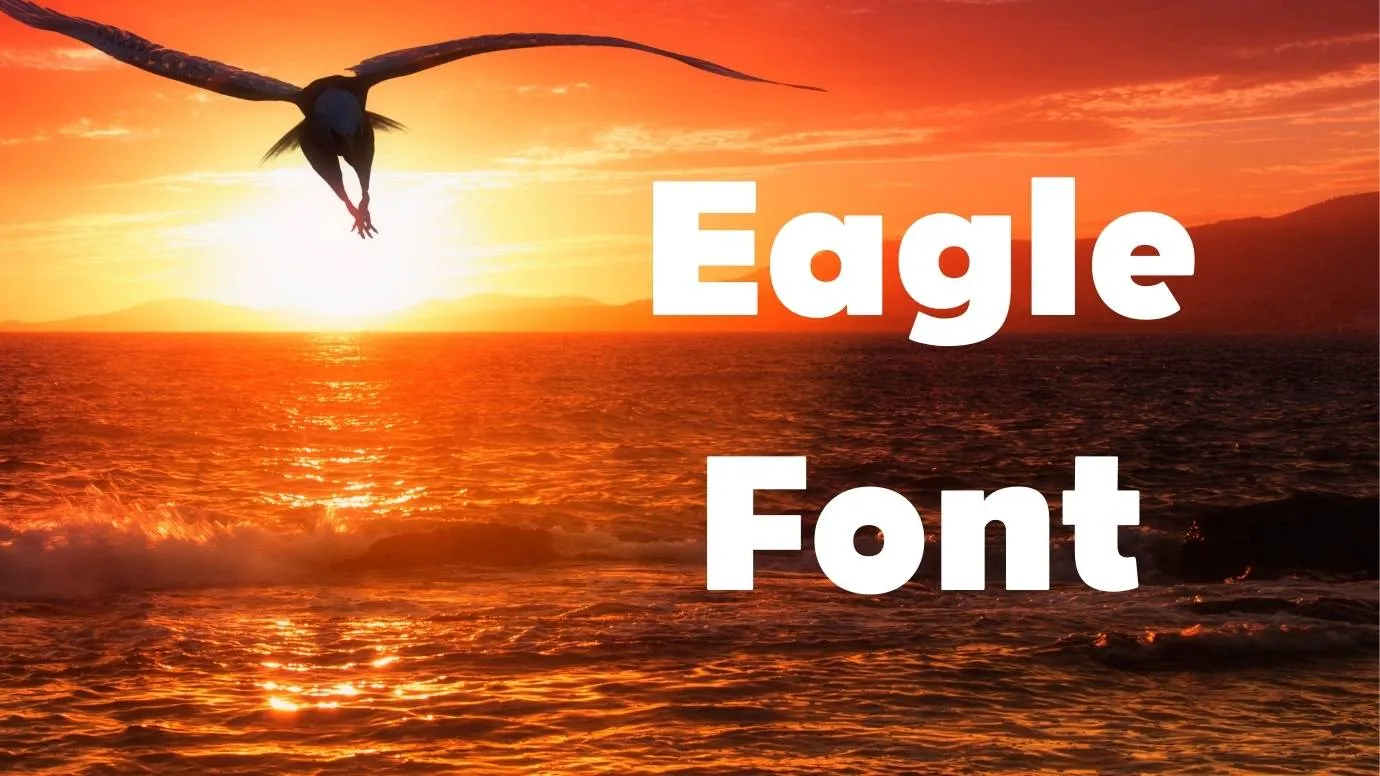
Eagle Font Family is a fantastic typeface that was established in the famous Spanish font foundry named Woodcutter. More than three lac peoples download this stunning typeface because of its uniqueness and eye-catching look.
This cartoonist typeface comes in one regular style that creates some unique glyphs with 1000 units/em. It is also perfect for companies icons, movie posters, tattoos, stickers, and other related purposes. It is best for the combination of other display typefaces like Irken Font.
Eagle Font Family